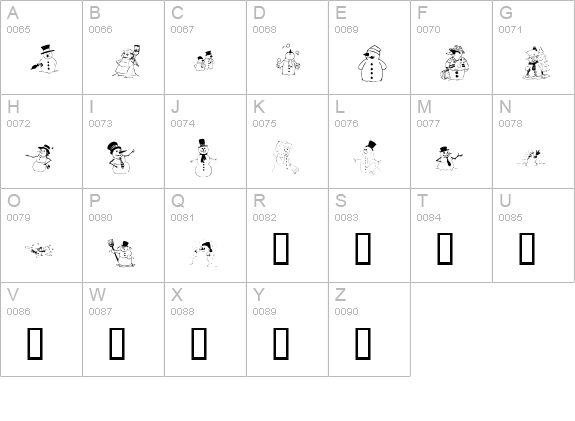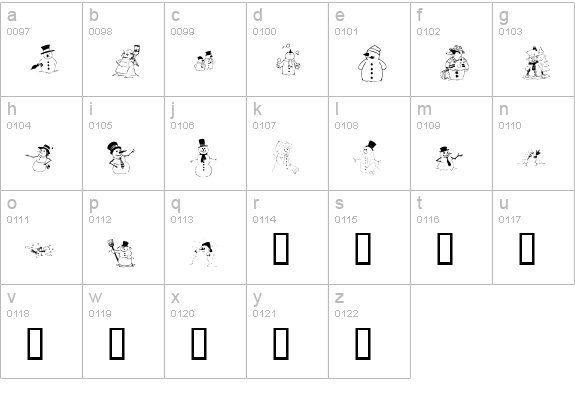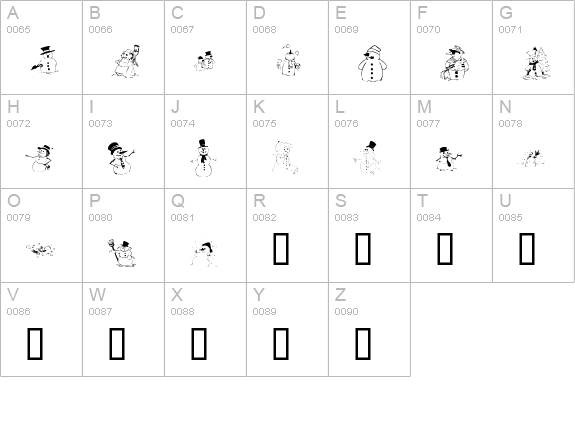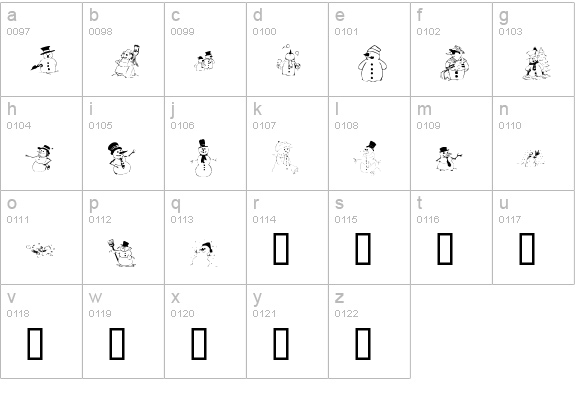
KR Snow People Font Details
The KR Snow People font is a whimsical and playful typeface that evokes the joy and magic of the winter season. With its charming snowman-inspired letterforms, this font is perfect for adding a touch of festive cheer to your designs. Each character is meticulously crafted to capture the fun and lighthearted spirit of the holidays. Best of all, the KR Snow People font is available for free download at FontsMarket.com. Whether you're creating holiday cards, party invitations, or seasonal branding materials, this font is sure to bring a smile to your audience's faces. Embrace the winter wonderland with the KR Snow People font and let your creativity sparkle and shine!